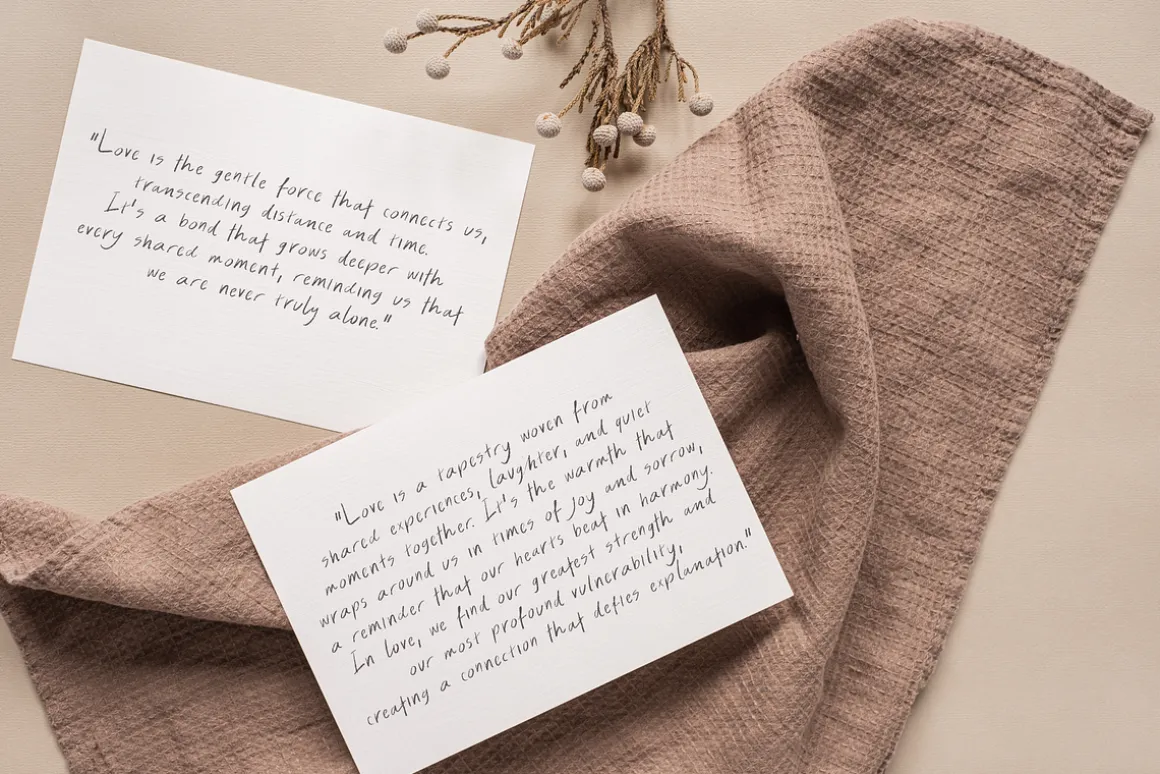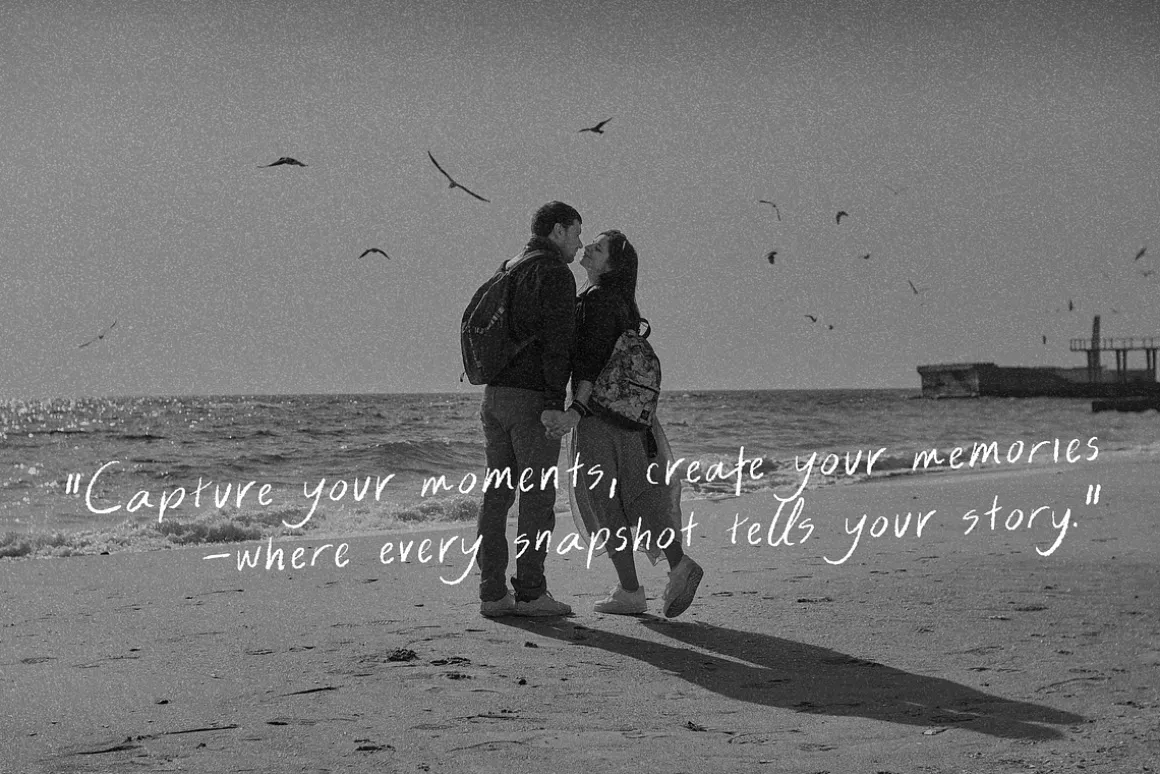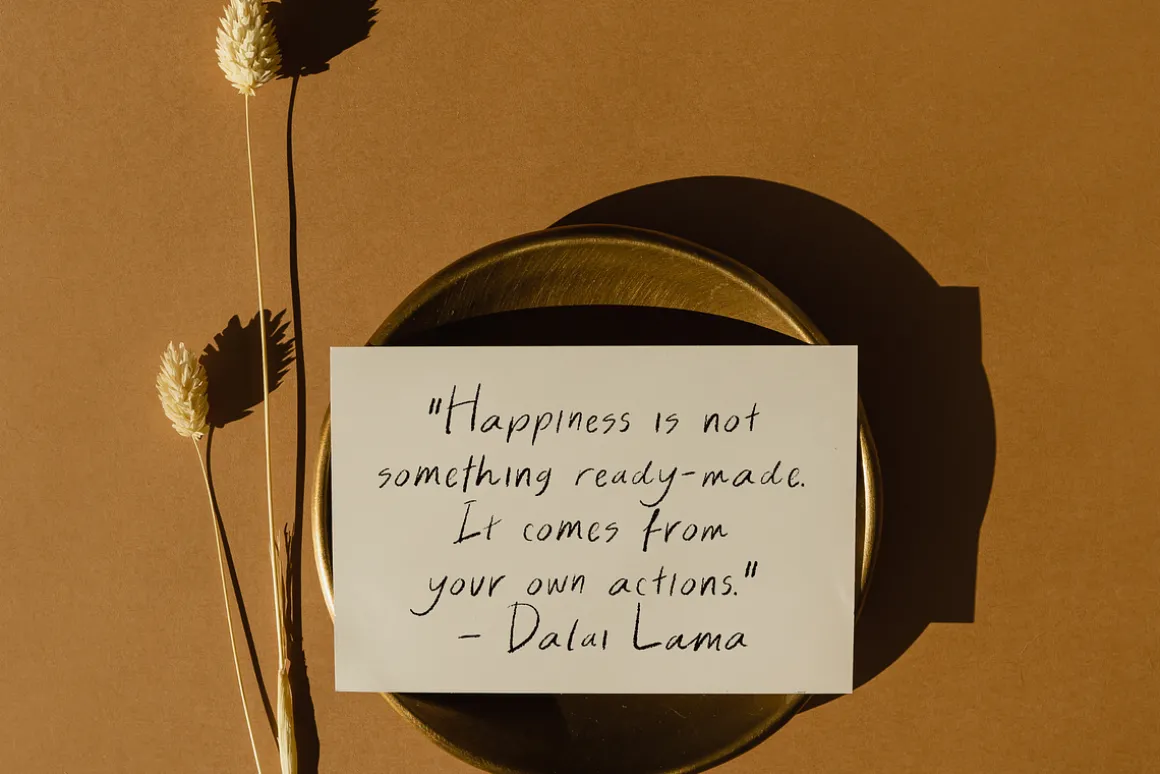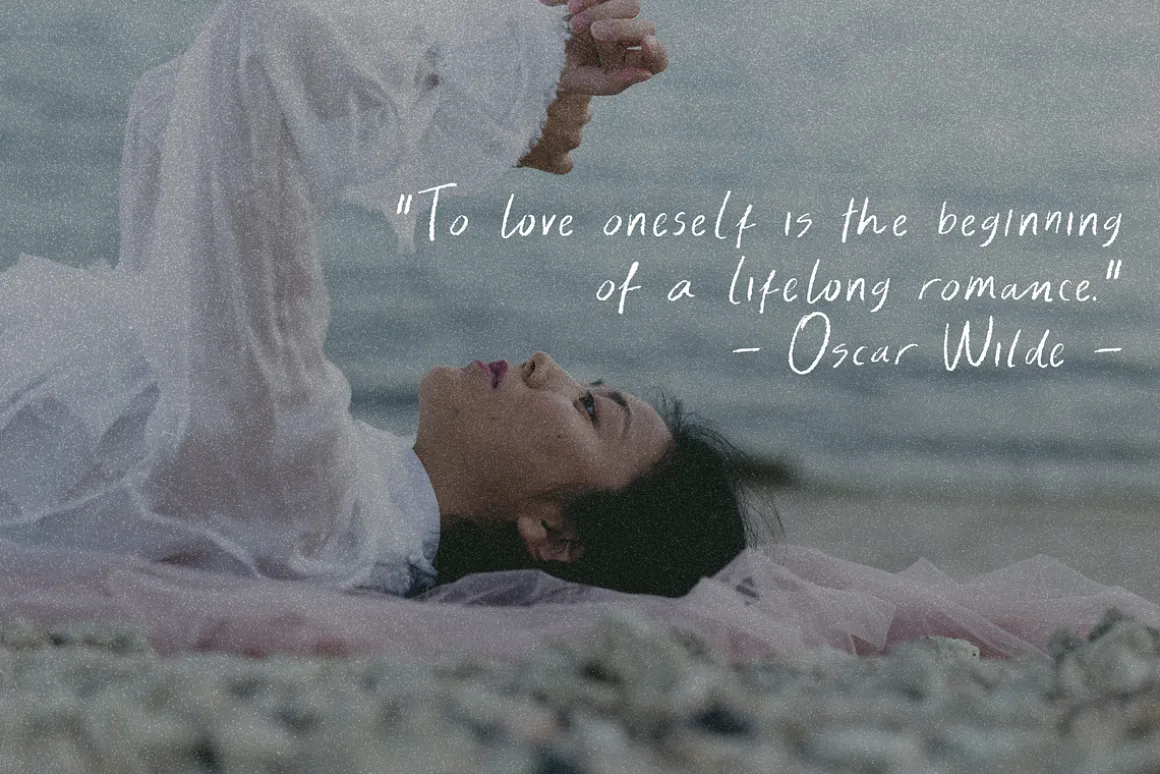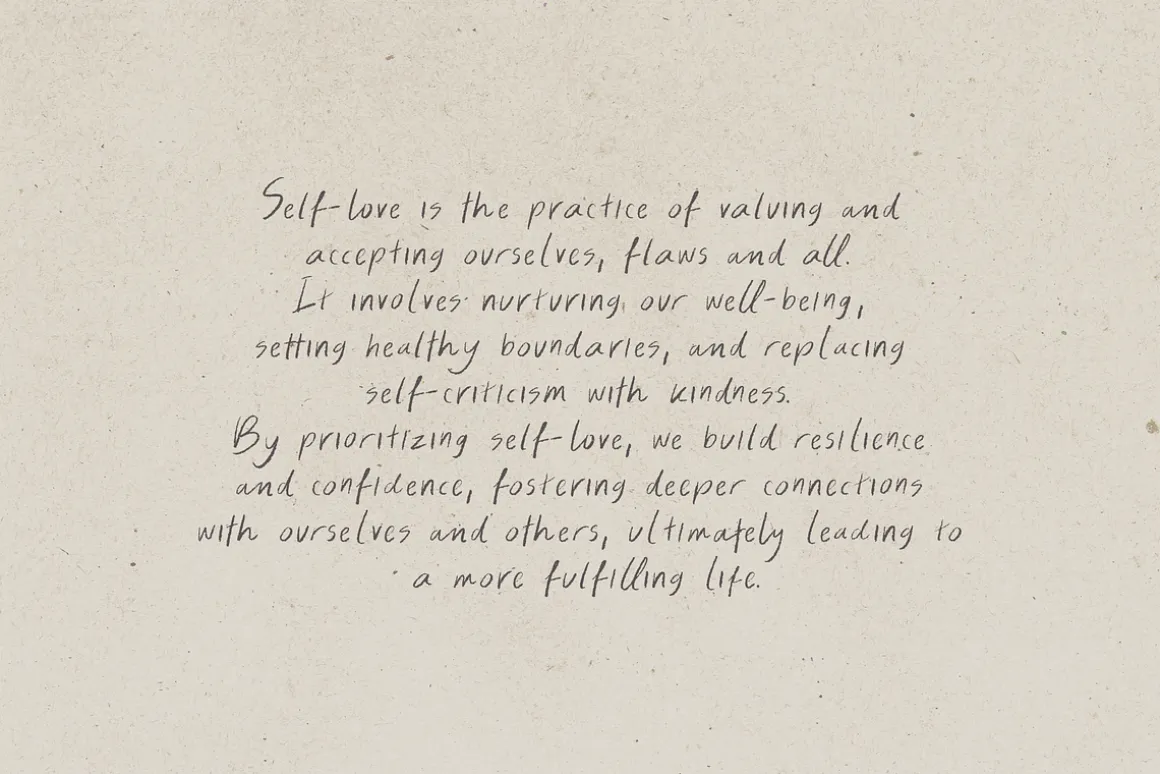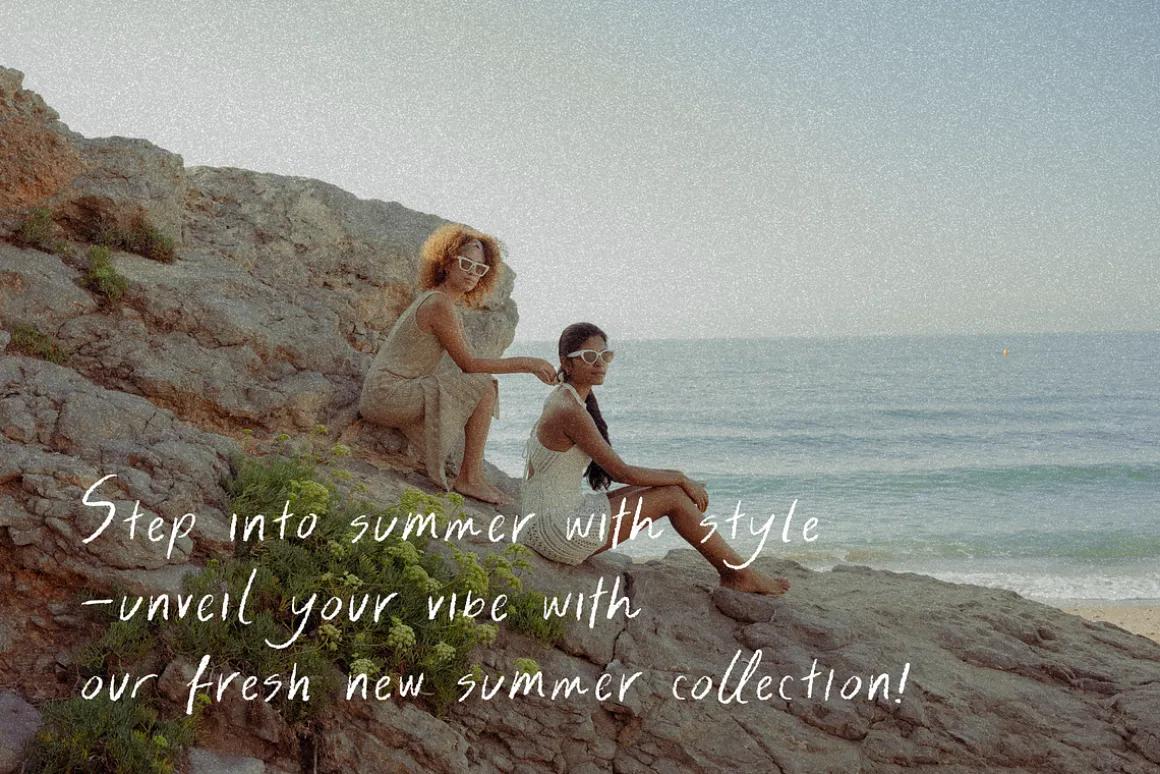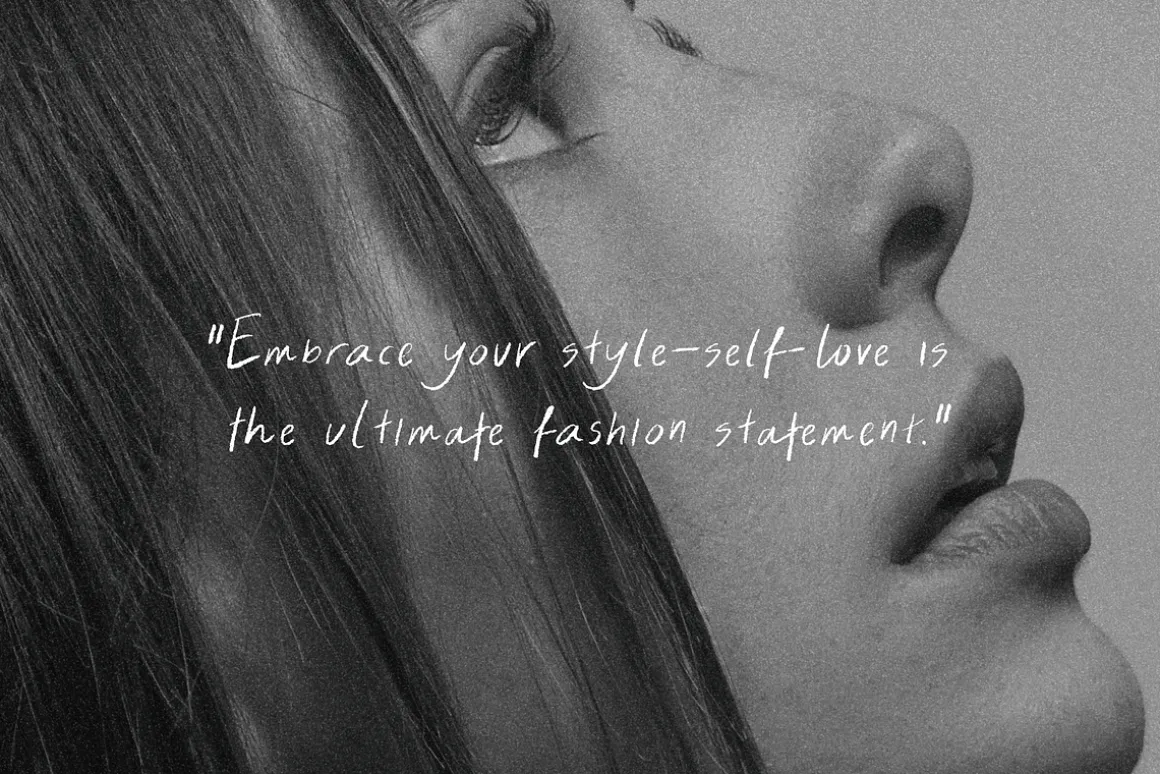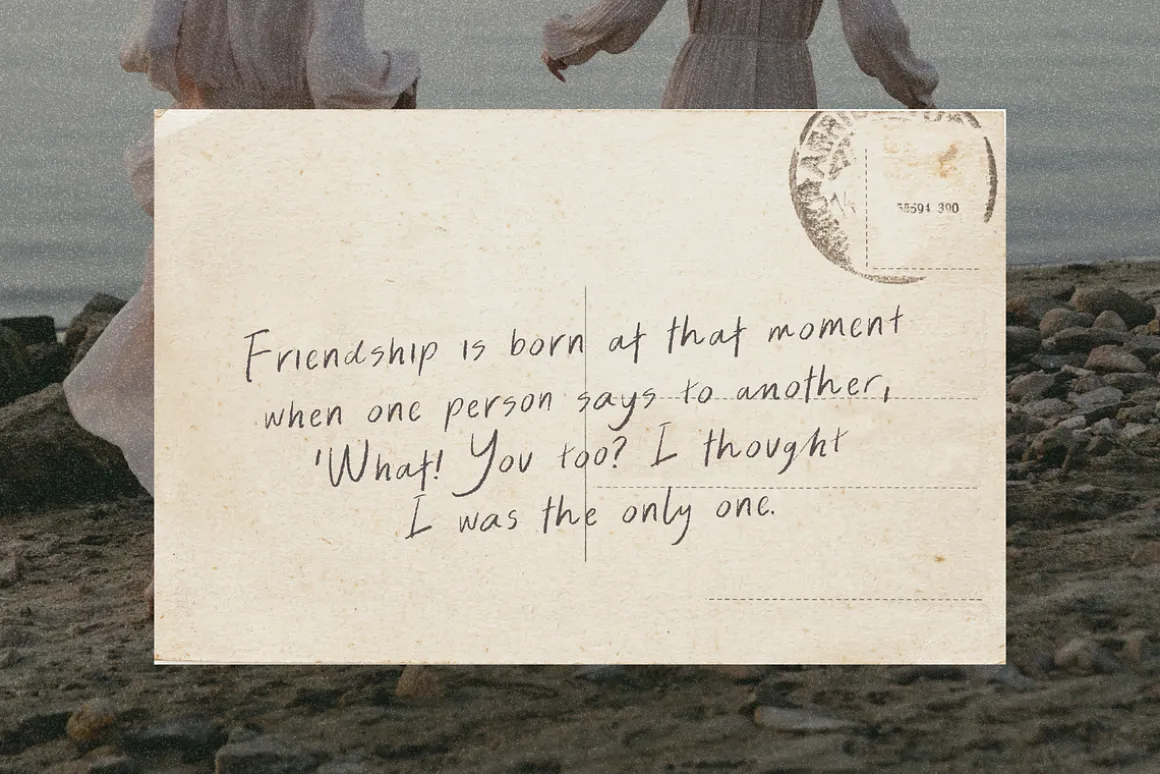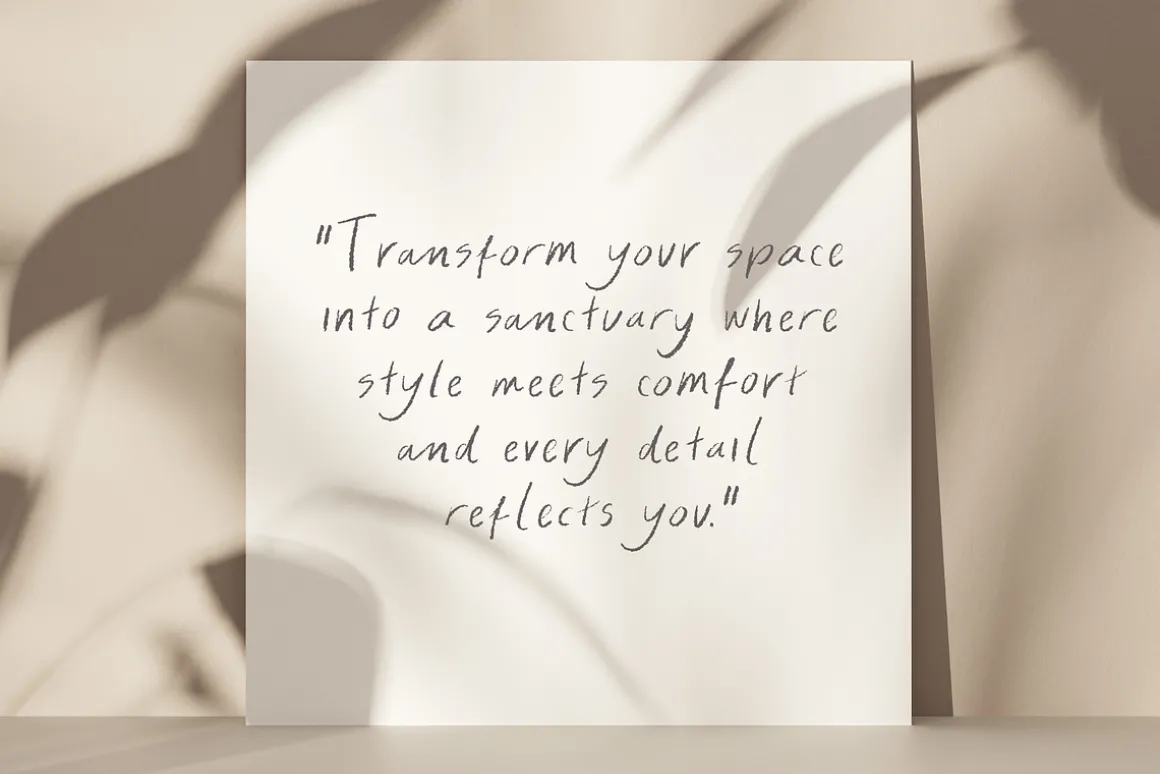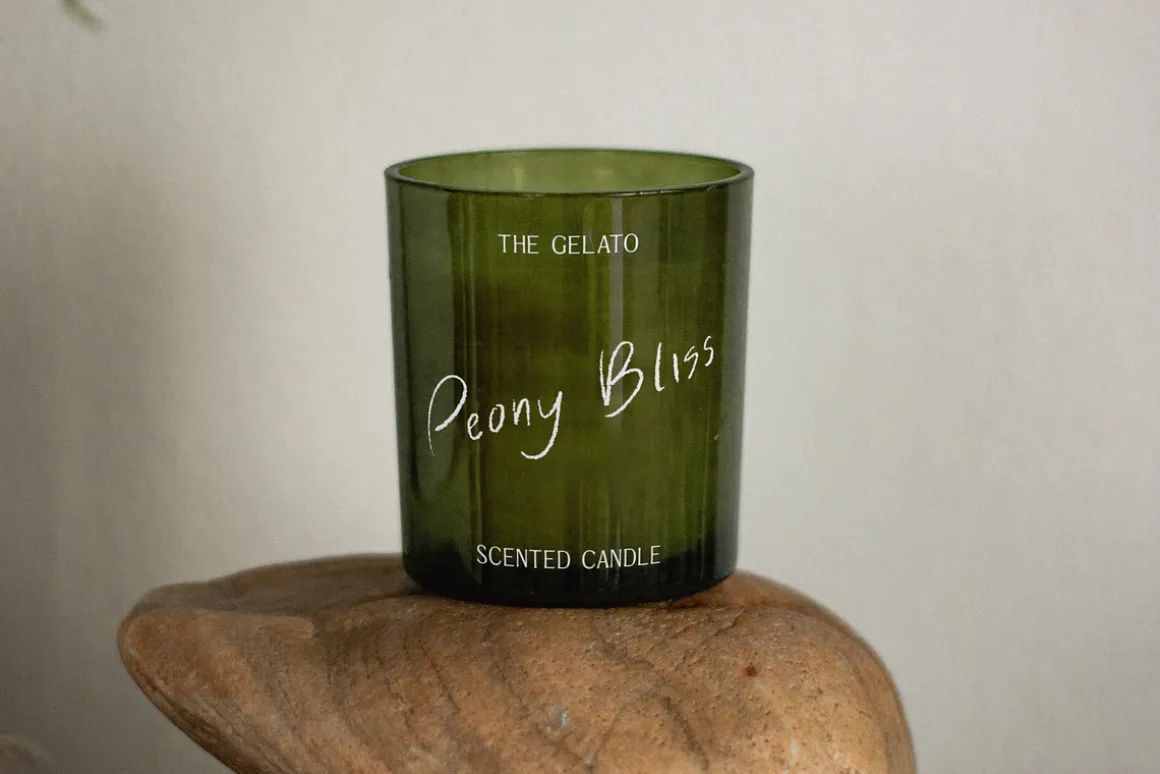
Introducing Blissful Radiance—a charming pencil texture handwritten font that captures the essence of warm, personal expression. Perfect for everything from heartfelt notes to stylish branding, this font radiates creativity and authenticity.
Key Features:
Unique Pencil Texture: Each letter boasts a delightful, hand-drawn feel, reminiscent of genuine pencil strokes, adding an organic touch to your designs.
Contextual Alternates: Our advanced OpenType feature includes 2 sets of alternates, allowing for automatic alternate shuffling as you type. Create a lively and dynamic look while eliminating monotonous repetition for a beautifully varied handwritten aesthetic!
Versatile Weights and Styles: Blissful Radiance offers 3 weights—Regular, Medium, and Bold— each paired with a Slanted version, providing 6 styles in total. This flexibility ensures the font can adapt to a variety of design needs.
Multilingual Support: With extensive character sets, Blissful Radiance ensures your messages can reach audiences across the globe, seamlessly accommodating various languages.
Now covering more extensive Latin-based languages: Western, Central, South Eastern European languages, South American languages, Oceanian languages, and Esperanto language
Afrikaans, Albanian, Asu, Basque, Bemba, Bena, Breton, Chiga, Colognian, Cornish, Croatian, Czech, Danish, Dutch, Embu, English, Esperanto, Estonian, Faroese, Filipino, Finnish, French, Friulian, Galician, German, Gusii, Hungarian, Icelandic, Indonesian, Irish, Italian, Kabuverdianu, Kalenjin, Kamba, Kikuyu, Kinyarwanda, Latvian, Lithuanian, Lower Sorbian, Luo, Luxembourgish, Luyia, Machame, Makhuwa-Meetto, Makonde, Malagasy, Maltese, Manx, Meru, Morisyen, North Ndebele, Norwegian Bokmål, Norwegian Nynorsk, Nyankole, Oromo, Polish, Portuguese, Quechua, Romanian, Romansh, Rombo, Rundi, Rwa, Samburu, Sango, Sangu, Scottish Gaelic, Sena, Serbian, Shambala, Shona, Slovak, Slovenian, Soga, Somali, Spanish, Swahili, Swedish, Swiss German, Taita, Teso, Turkish, Upper Sorbian, Uzbek (Latin), Volapük, Vunjo, Walser, Welsh, Western Frisian, Zulu
Whether you’re designing invitations, crafting social media graphics, or creating branding elements, Blissful Radiance is your go-to font for a touch of warmth and whimsy. Elevate your projects with the effortless elegance of this stunning handwritten typeface!